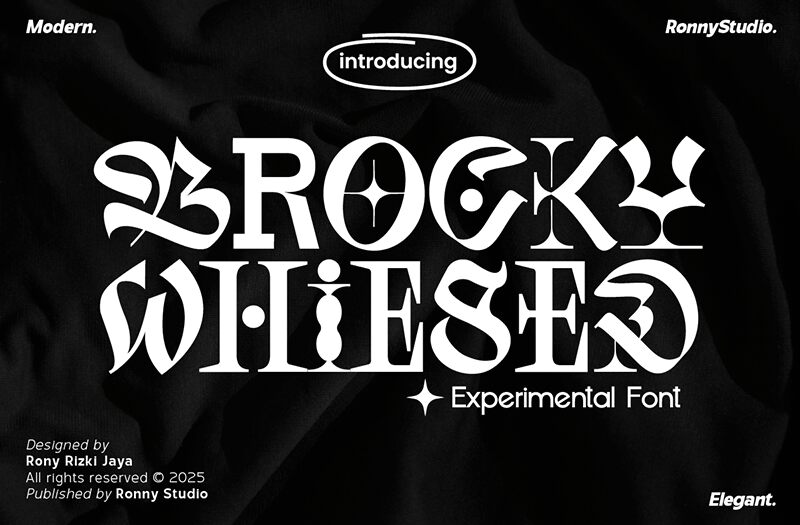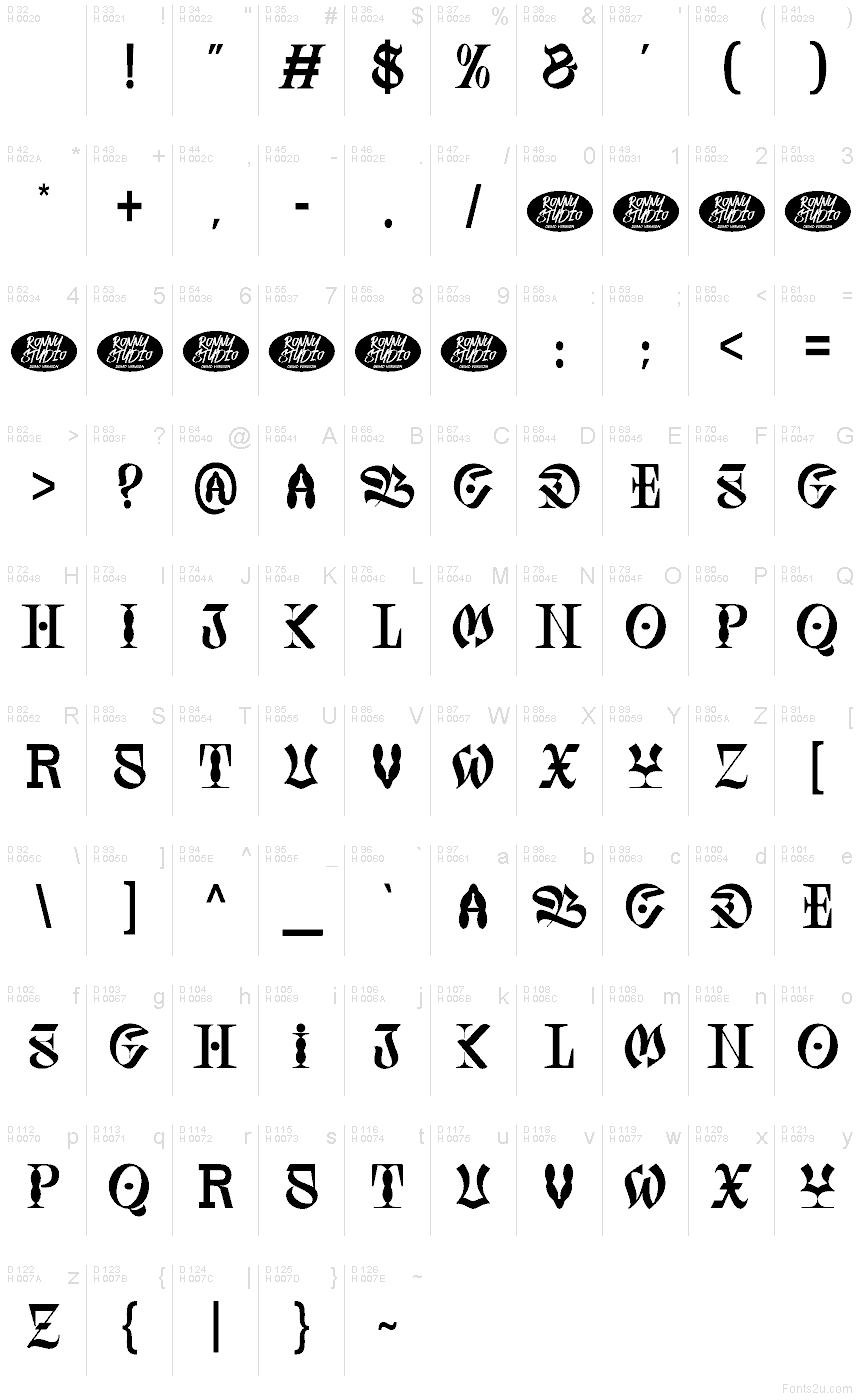
Brocky Whiesed DEMO
Brocky Whiesed font by Ronny Studio is a free decorative display typeface with a wild, carved look. Thick, inky strokes snap into dagger-like spurs, while swirling cutouts and dot details give each letter a ritual, tattooed energy. It feels hand-hewn and a little dangerous—bold enough to command a poster, yet ornate enough to reward a second glance.
Using Brocky Whiesed, headlines gain a rhythmic, tribal pulse that reads fast at large sizes and leaves a strong afterimage. It shines on album art, streetwear logos, festival flyers, game titles, YouTube thumbnails, and bar or tattoo signage. Keep body text in a plain, modern sans for balance, and let this free font run big and tight to emphasize its sculpted forms.